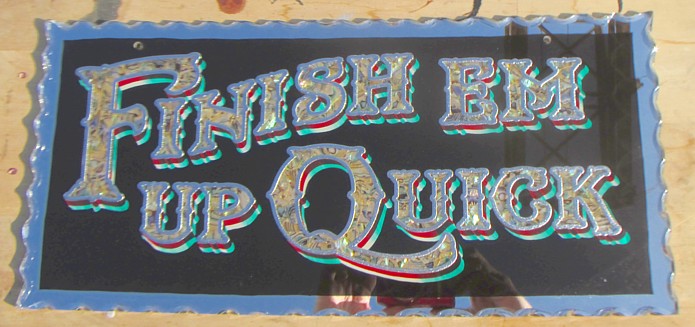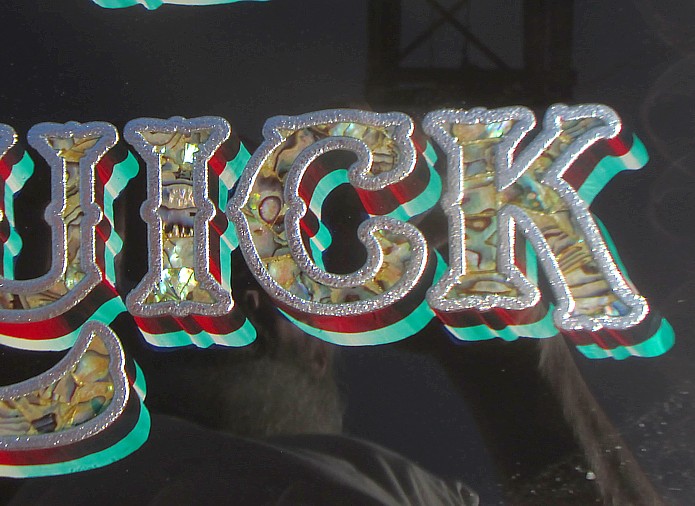
I added an airbrushed black glaze around the pictorial border. It has added a needed contrast. Now I'll call it done! Thanks for following along.
Here it is in it's finished frame!
Hamilton Bank Note reverse glass sign, Step-by-Step Part 5
I added an airbrushed black glaze around the pictorial border. It has added a needed contrast. Now I'll call it done! Thanks for following along.
Here it is in it's finished frame!
Hamilton Bank Note reverse glass sign, Step-by-Step Part 4
Step 8 - Rendering Secondary Copy
I water gilded 18K gold and Paladium leaf, then back painted the copy. I took my original layout drawing and scanned the various text. I then ran the Corel Trace function on the bitmap image, giving me a vector file. After a bit of tweeking of ...
Hamilton Bank Note reverse glass sign, Step-by-Step Part 4
Step 8 - Rendering Secondary Copy
I water gilded 18K gold and Paladium leaf, then back painted the copy. I took my original layout drawing and scanned the various text. I then ran the Corel Trace function on the bitmap image, giving me a vector file. After a bit of tweeking of ...
Hamilton Bank Note reverse glass sign, Step-by-Step Part 3
The line work is "over run" at the ends and then trimmed back to leave a sharp corner.
This shows the "over run" ends after they have been trimmed back.
And, here it is from the front.
Here it is from the front. The blemishes ...
The line work is "over run" at the ends and then trimmed back to leave a sharp corner.
This shows the "over run" ends after they have been trimmed back.
And, here it is from the front.
Here it is from the front. The blemishes ...
Hamilton Bank Note reverse glass sign, Step-by-Step Part 3
The line work is "over run" at the ends and then trimmed back to leave a sharp corner.
This shows the "over run" ends after they have been trimmed back.
And, here it is from the front.
Here it is from the front. The blemishes ...
The line work is "over run" at the ends and then trimmed back to leave a sharp corner.
This shows the "over run" ends after they have been trimmed back.
And, here it is from the front.
Here it is from the front. The blemishes ...
Hamilton Bank Note reverse glass sign, Step-by-Step Part 2
I then proceeded to water gild the robbon in Rouge Gold. Water gilding over embossed varnish is much like gilding over glue chipping as it takes a couple water gilds, then needs to be finished with a surface gild. It's difficult to get the gold to fully go down into the ...
Looks like it might just be hand drawn for that sign.